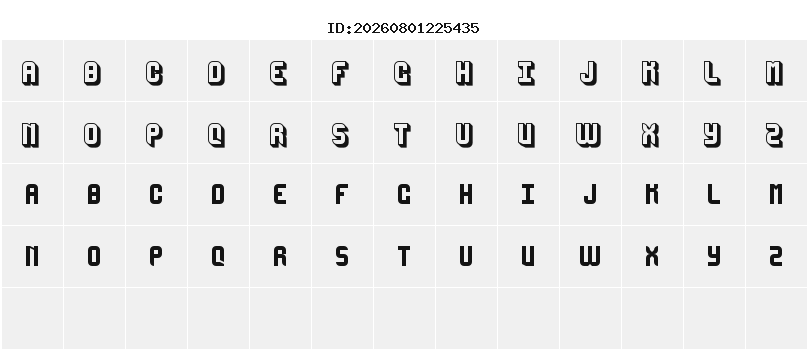
About Mega Sans.otf
Mega Sans.otf is a modern, elegant sans-serif font designed for ultimate readability and visual harmony. Perfect for branding, headlines, web design, and print materials.